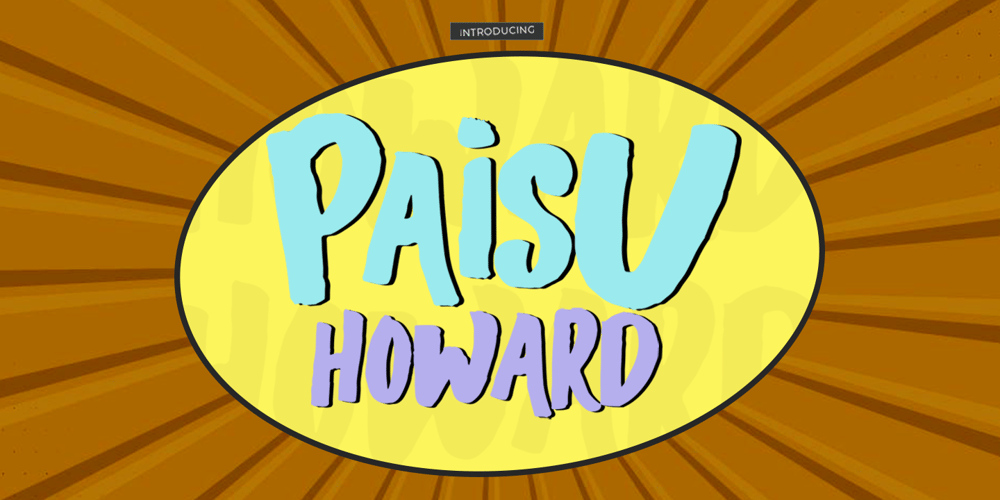
Paisu Howard Font Family was designed by Alam Syahril and published by Realtype. Paisu Howard contains 1 styles and family package options. Paisu Howard is a Comics fonts was creating with a brush pen. Friendly-looking, it is inspired by the lettering of the comics typeface with an adventurous and humorous font-style. It is chunky, marked and brush textured. This fonts created to make an freestyle of design.